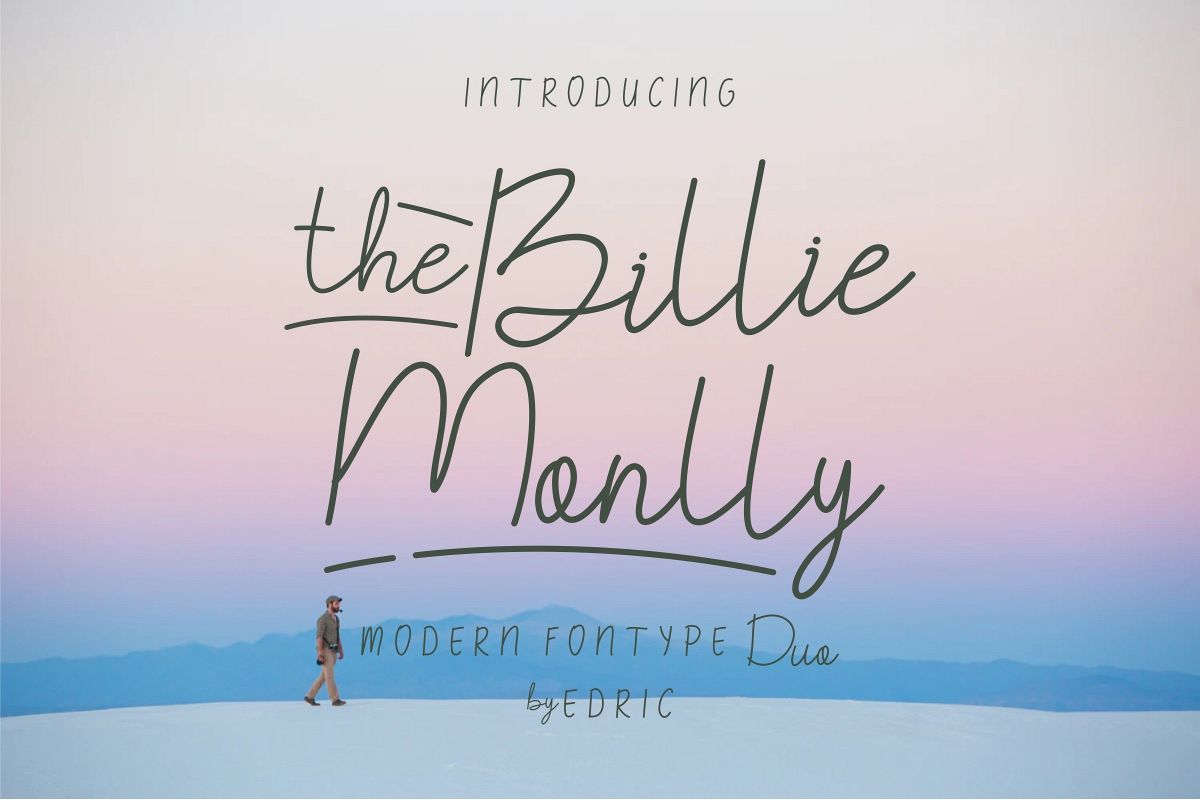
The Billie Monlly
Please meet our newest font : The Billie Monlly!
It is a font family with a unique glyphs. It has two styles : Script Handwritten and Sans. On the package You will get :